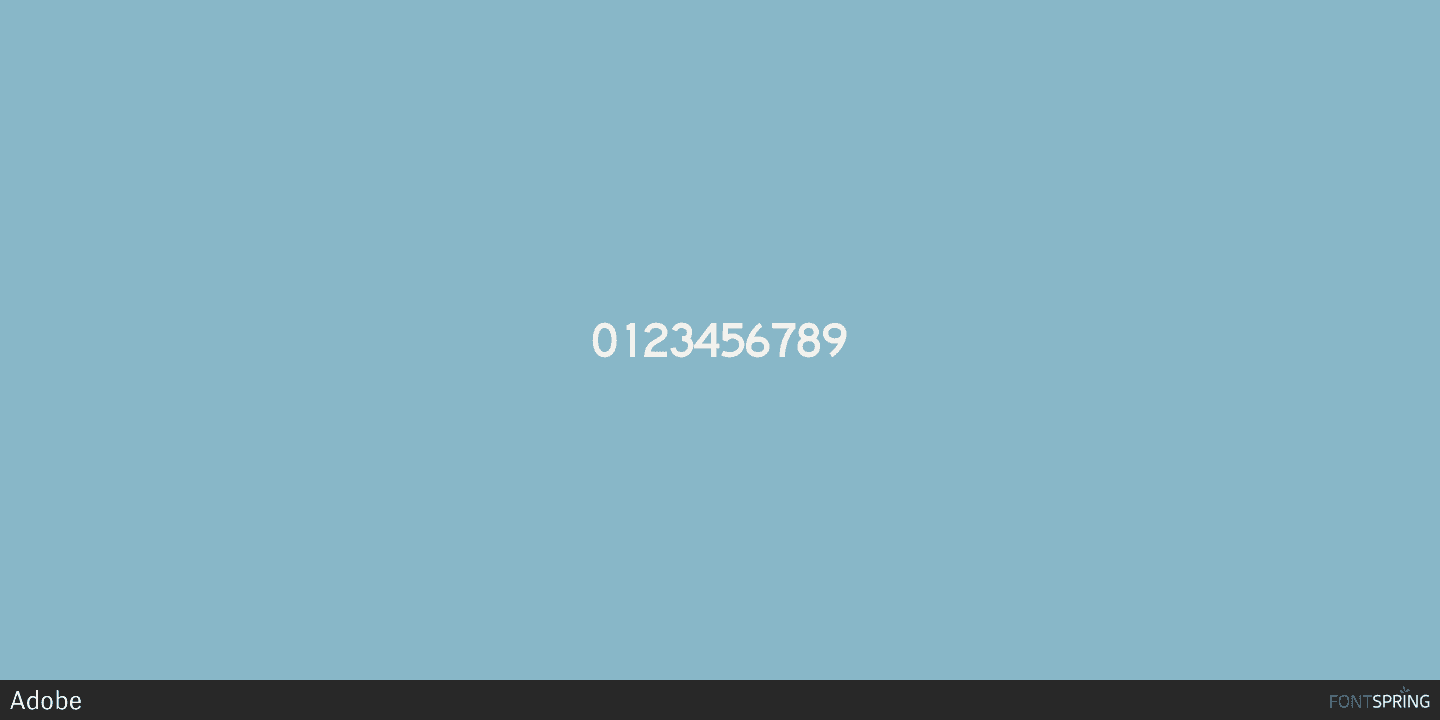
Carta® Std is a dingbat font published by Adobe.
Carta is a map font designed at Adobe by Lynne Garell in 1986. Carta’s development began with the study of a variety of maps from sources such as the U.S. Geological Survey and National Geographic. A diverse set of symbols, Carta can be used in city planning, travel, socio-economic, and survey maps.